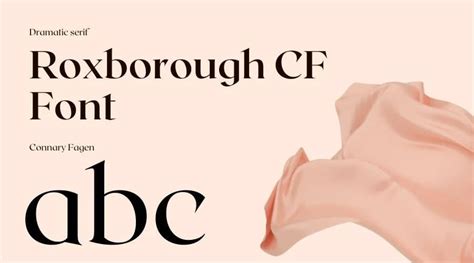
Roxborough Cf Font. May 30, 2021 by free fonts leave a comment. Roxborough cf is a dramatic serif, influenced by calligraphy and hand lettering.
How about 20,000+ commercial fonts with unlimited downloads download now. Web roxborough cf font is a dramatic serif, impacted by calligraphy and hand lettering. Web roxborough cf font 0 comment. Roxborough cf is a dramatic serif, influenced by calligraphy and hand lettering. Roxborough is a dramatic serif, influenced by calligraphy and hand lettering. Web roxborough cf font. May 30, 2021 by free fonts leave a comment. Web roxborough cf serif font family is a dramatic serif, influenced by calligraphy and hand lettering. Web about roxborough cf font family.
Web roxborough cf font is a dramatic serif, impacted by calligraphy and hand lettering. Web roxborough cf font 0 comment. Web roxborough cf font. Roxborough cf is a dramatic serif, influenced by calligraphy and hand lettering. Web roxborough cf font is a dramatic serif, impacted by calligraphy and hand lettering. Web roxborough cf serif font family is a dramatic serif, influenced by calligraphy and hand lettering. May 30, 2021 by free fonts leave a comment. How about 20,000+ commercial fonts with unlimited downloads download now. Web about roxborough cf font family. Roxborough is a dramatic serif, influenced by calligraphy and hand lettering.